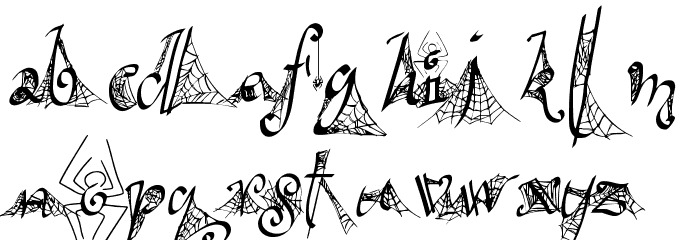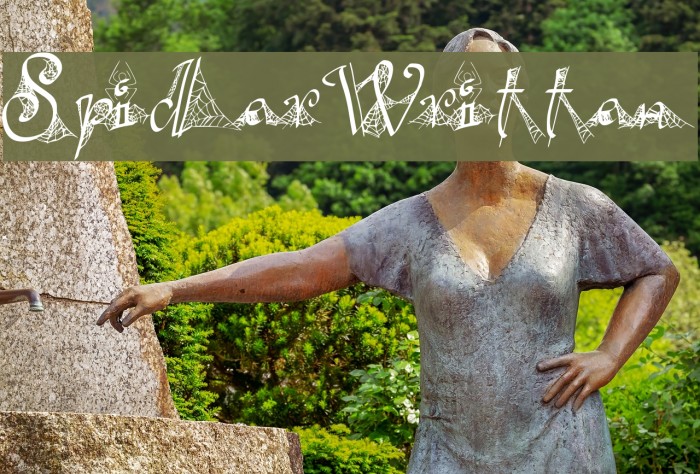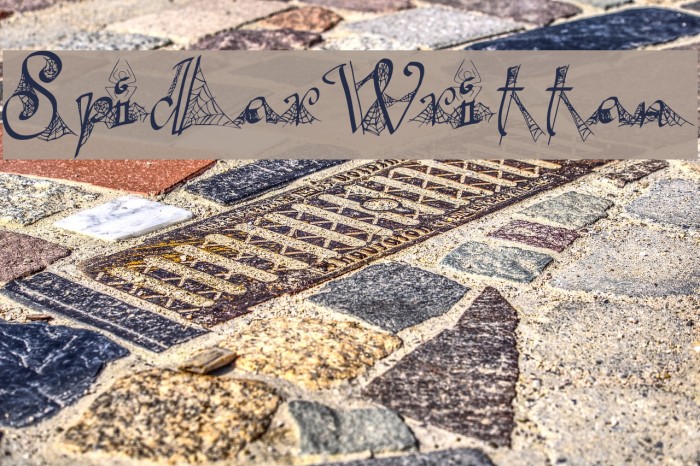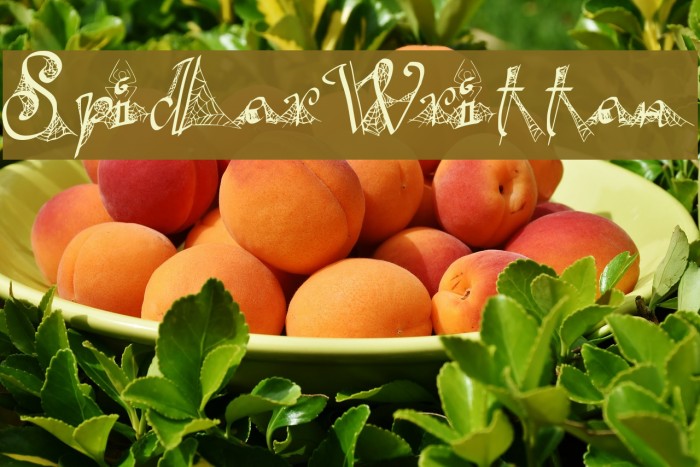
SpiderWritten Font
This font features an intricate and decorative design inspired by spider webs. Each character is adorned with web-like patterns, creating a spooky and whimsical appearance. The uppercase letters are bold and dramatic, with web strands connecting various parts of the letters. The lowercase letters maintain the same theme, with some characters incorporating spider motifs. The numbers and special characters follow suit, ensuring a cohesive look throughout. This font is perfect for Halloween-themed projects or any design requiring a touch of eerie elegance.
A decorative font with spider web motifs, perfect for spooky themes.
- Proposed Projects: Ideal for Halloween invitations, themed posters, horror book covers, and decorative signage.